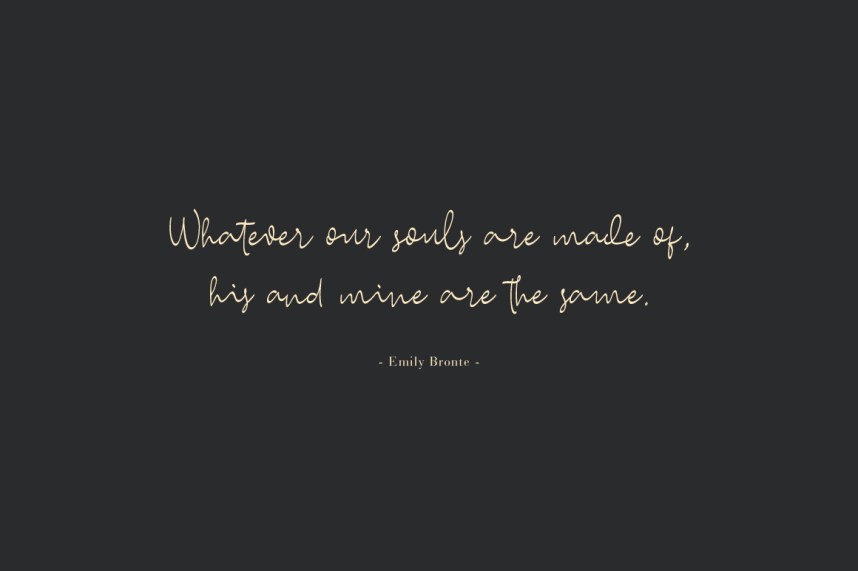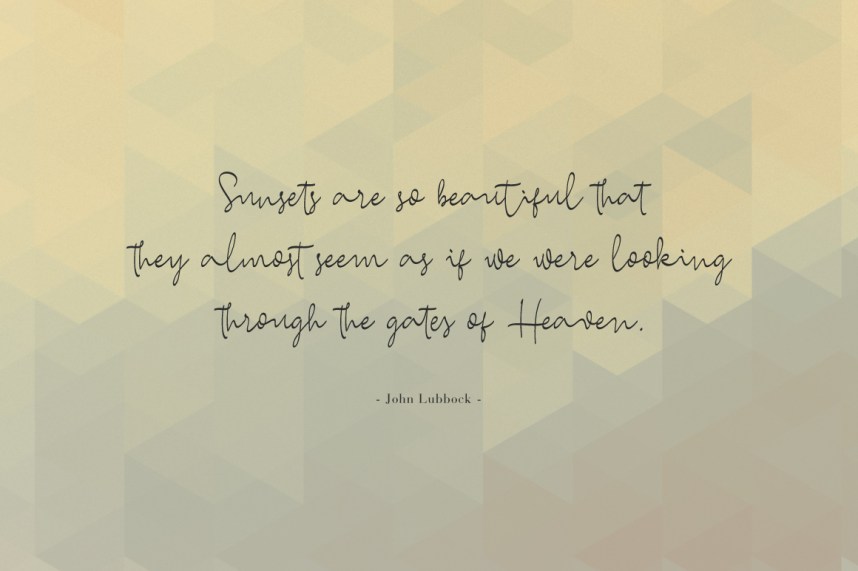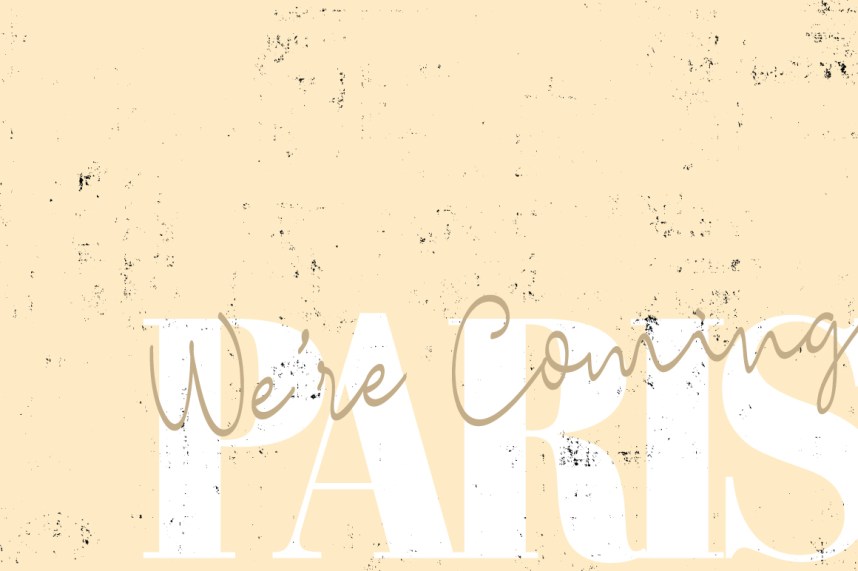
Conditional Script Free Font
Conditional – is a handwritten-type lettering feeling created by Ijemrockart. This signature style is perfect for your modern graphic design needs. This font has a really nice flow so you use it in a large text if you want to give them a touch of personality. It can be used on social media content, for branding or packaging.